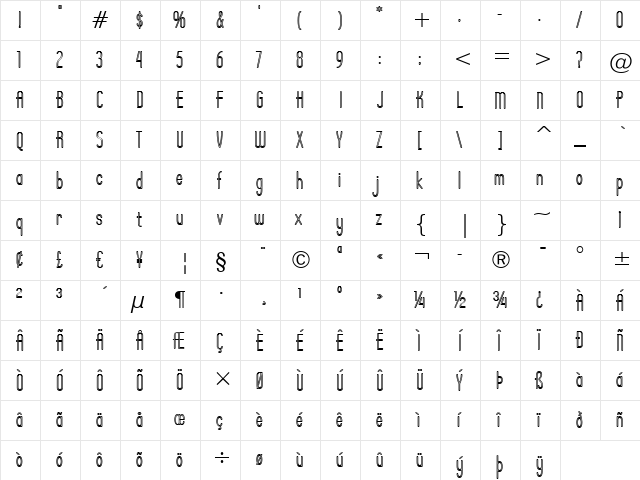
Operator Nine BTN Inline Regular
Design Context for Operator Nine BTN Inline Typeface
Operator Nine BTN Inline brings ornamental detail and strong personality to headlines and identities, where visual impact matters more than quiet functionality.
Font Pairing: Pair with a clean neutral sans-serif for body copy to let Operator Nine BTN Inline's character lead without overwhelming the composition.
Pro Tip: Use Operator Nine BTN Inline exclusively at display sizes — it was designed to be seen, not read at length. Let a neutral companion handle body copy.